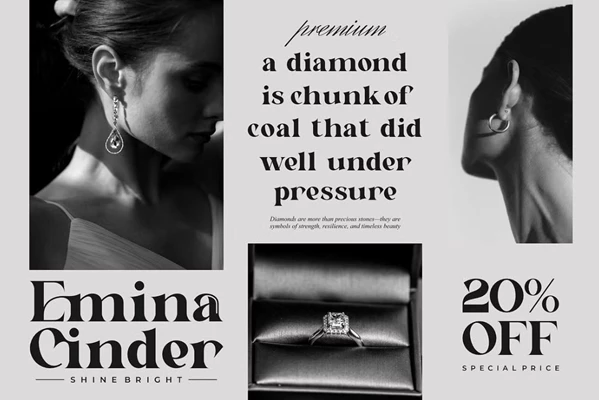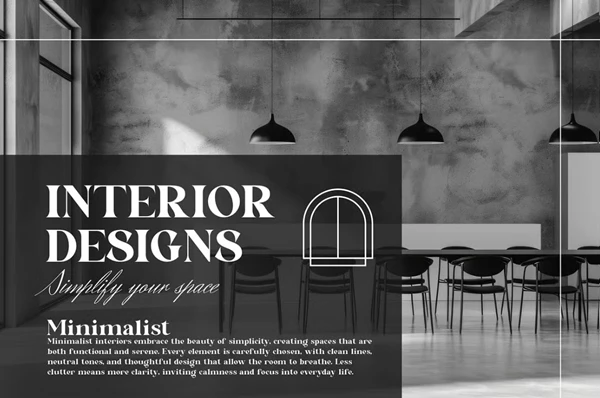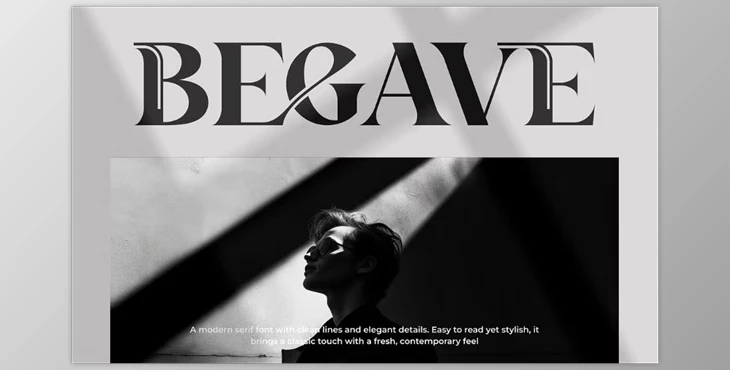
Begave || Modern Classy Serif Font:
Begave Serif is a modern, classy typeface that adds a cool factor to branding and logos. This modern serif font is perfect for invitations, logos, movie titles, business cards, book covers, and anything else needing an elegant finish. What makes Begave Serif an even more creative choice is its stylish and smooth ligatures. Begave Serif will complement any design project.
Some great features of Begave || Modern Classy Serif Font:
- Stylish ligatures
- Uppercase and lowercase
- Numbers and punctuation